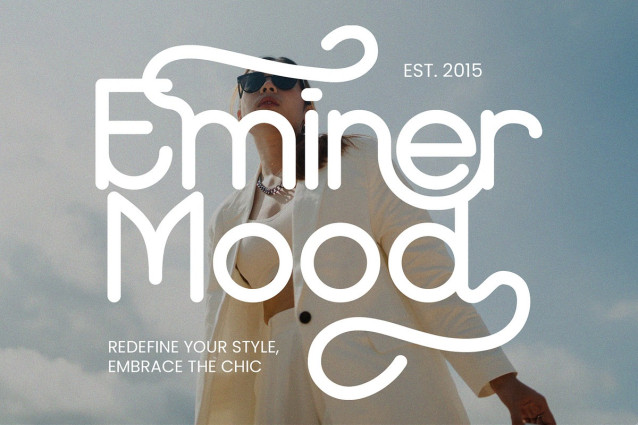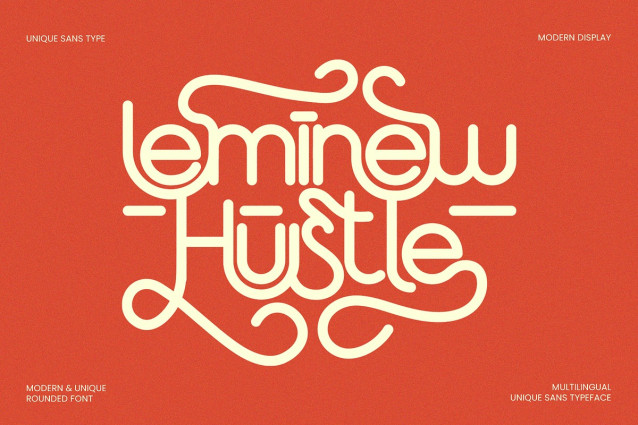
Leminew Font
Leminew Font is a sleek, monoline sans-serif with a unique twist. Ideal for modern branding, logos, and minimalistic designs, adding clean style to any project.